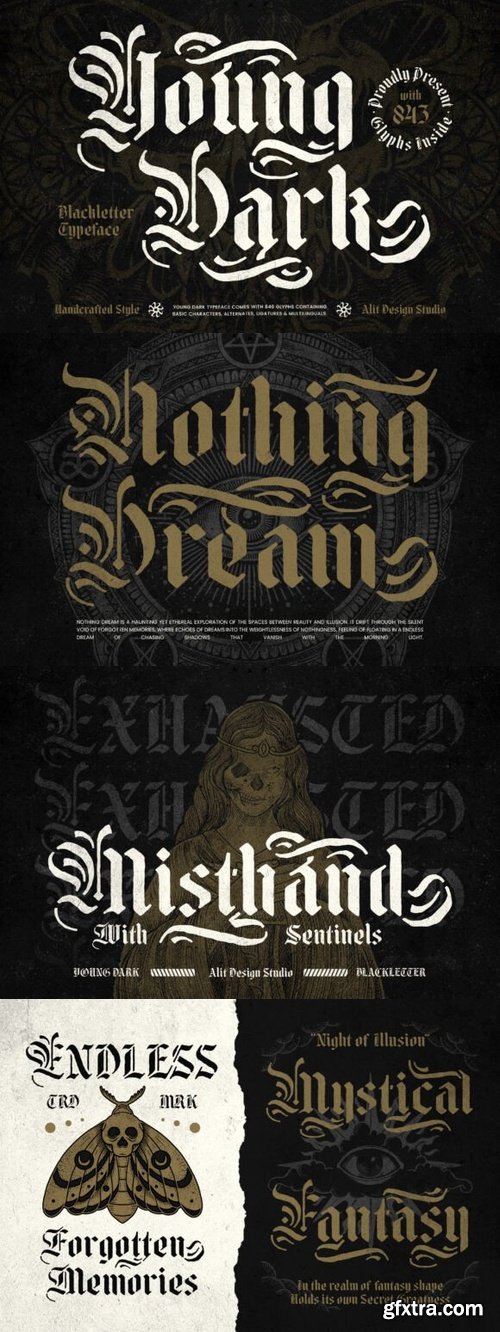
- Unleash the power of gothic artistry with Young Dark Typeface, a masterfully designed blackletter stencil font that blends historical elegance with a modern, rebellious edge. Designed for those who seek to make a statement, this typeface delivers a bold, high-impact visual appeal that suits a variety of creative projects—from branding to apparel, posters, music covers, and more.
Why Choose Young Dark Typeface? This typeface uniquely combines blackletter and stencil styles, merging medieval calligraphy with a rugged stencil cut-out effect. Its striking look is perfect for projects needing a strong, gothic aesthetic. Font Features 846 Characters – Includes a vast range of glyphs such as uppercase, lowercase, numerals, punctuation, and symbols. Swashes & Alternates – Add artistry with extended strokes and decorative flourishes. Stylish Ligatures – Enjoy fluid, natural letter combinations. PUA Unicode – Access special characters without extra design tools. Multilingual Support – Extensive language coverage including Western, Central, and Southeast European scripts. Perfect For Logo & Branding – Craft distinctive identities with an attention-commanding font. Posters & Album Covers – Ideal for metal, gothic, rock, and underground genres. Tattoo & Apparel Design – Impart a dark, handcrafted look to fashion projects. Editorial & Book Covers – Suits fantasy, horror, and historical themes. Social Media & Marketing – Make bold statements with dramatic typography. Young Dark Typeface is your go-to for designs that combine vintage gothic elegance with modern urban rebellion. Embrace the uniqueness of this font and make a lasting impact. Get Young Dark Typeface today and craft your next masterpiece!